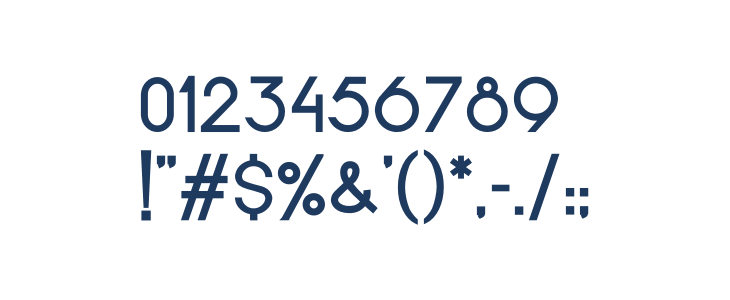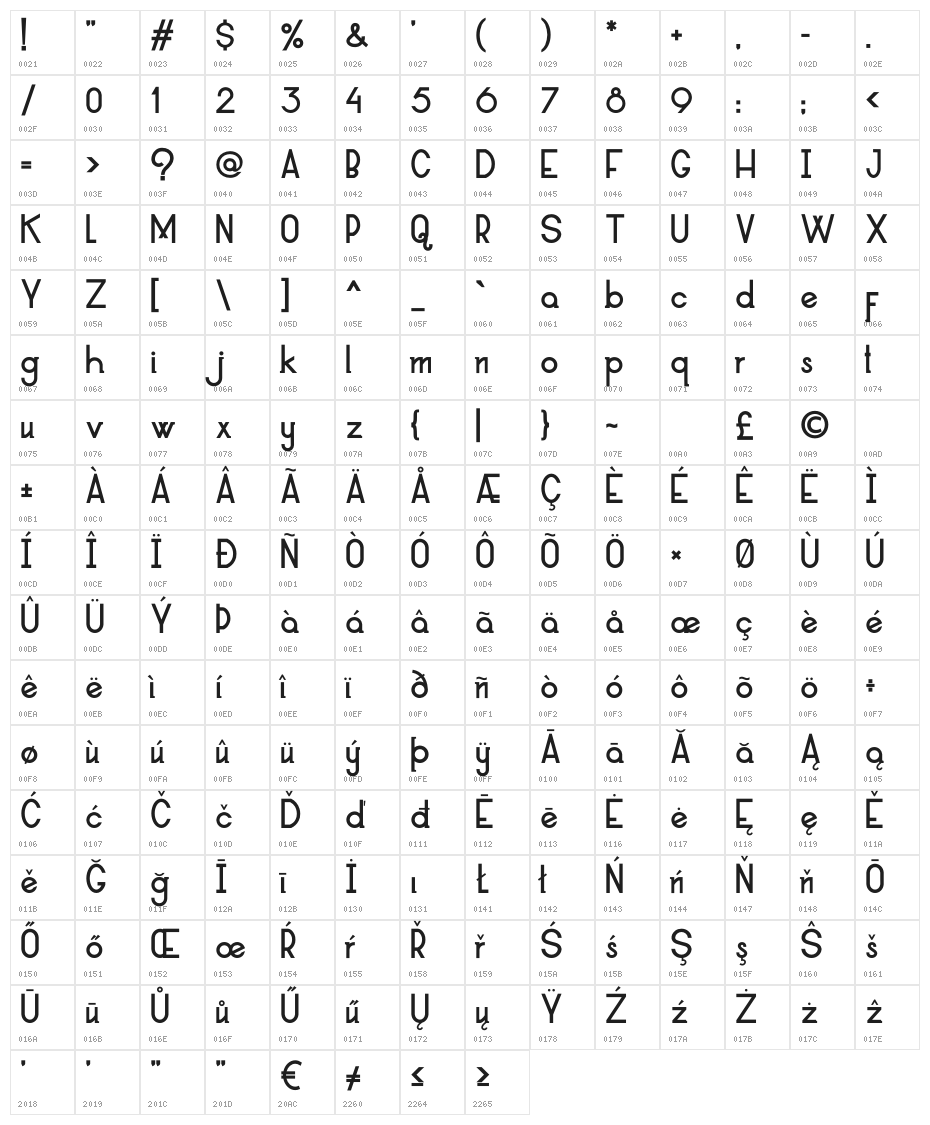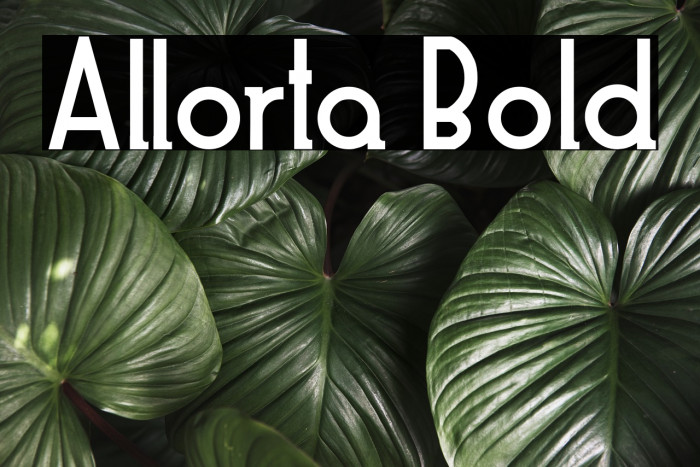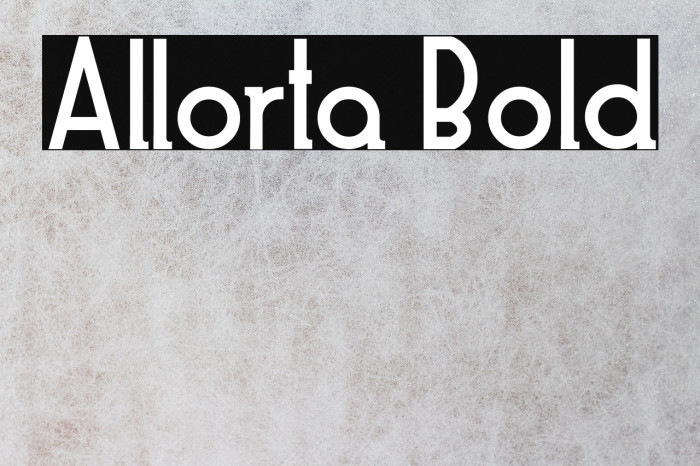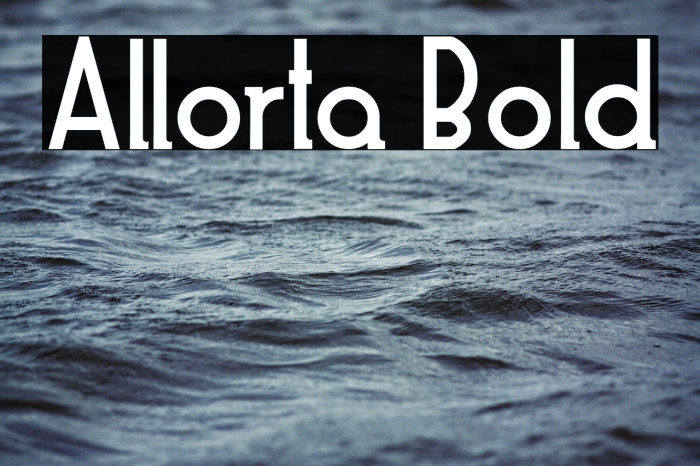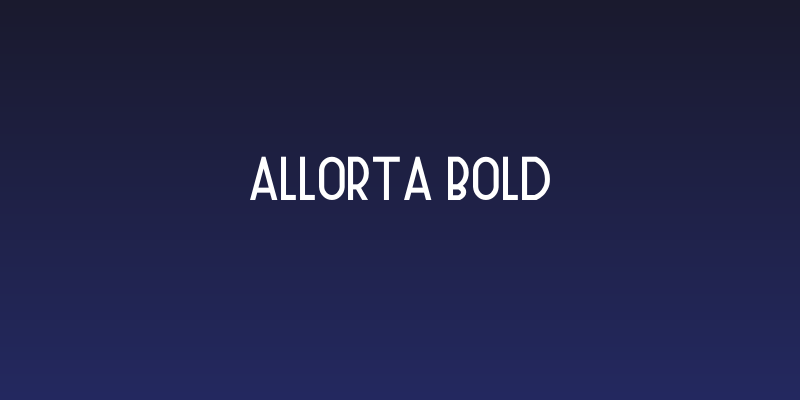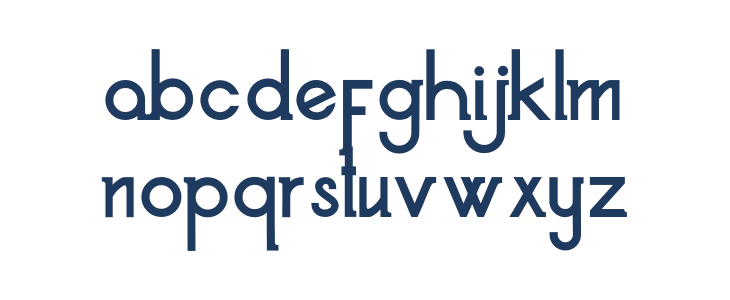
Allorta Bold Font
Allorta Bold Description
This font features a bold and geometric design with a modern flair. The uppercase letters are characterized by clean, straight lines and sharp angles, giving them a strong and assertive appearance. The lowercase letters maintain a similar geometric style, with some characters like 'g' and 'y' having distinctive loops and tails that add a touch of uniqueness. The numerals are consistent with the overall style, offering clarity and readability. Special characters are well-integrated, maintaining the font's cohesive look. The font's boldness makes it suitable for attention-grabbing headlines and titles.